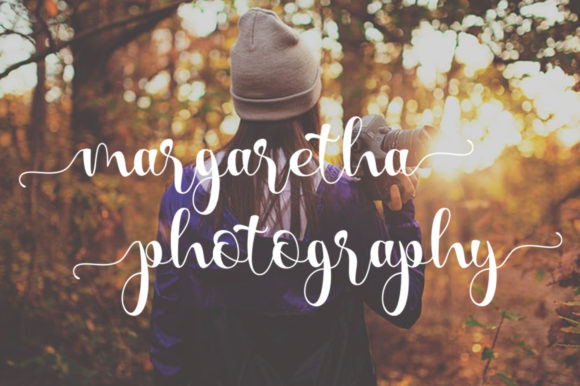
Matilda Font
Matilda is a beautiful script font. It features gorgeous swashes and ligatures that make this script incredibly versatile. Fall in love with its authentic feel and use it to create gorgeous wedding invitations, beautiful stationary art, eye-catching social media posts, and cute greeting cards.